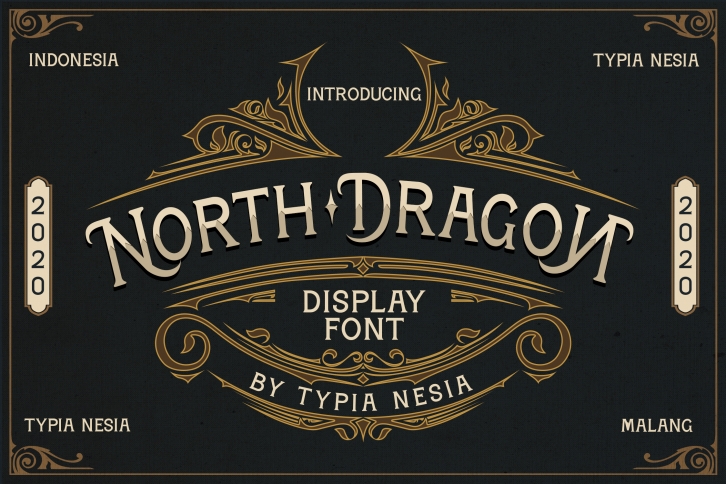
North Dragon is a great font that was designed by Typia nesia. Imagine the amount of combinations you can create using this font! The archive is 6.99 MB and it was released on February 19, 2020. North Dragon looks beautiful on wedding invitations, greeting cards, logos, posters, labels, t-shirt designs, logos, business cards and is perfect for use in ink or watercolor works, fashion, magazines, packaging and food menus, children's books and more!